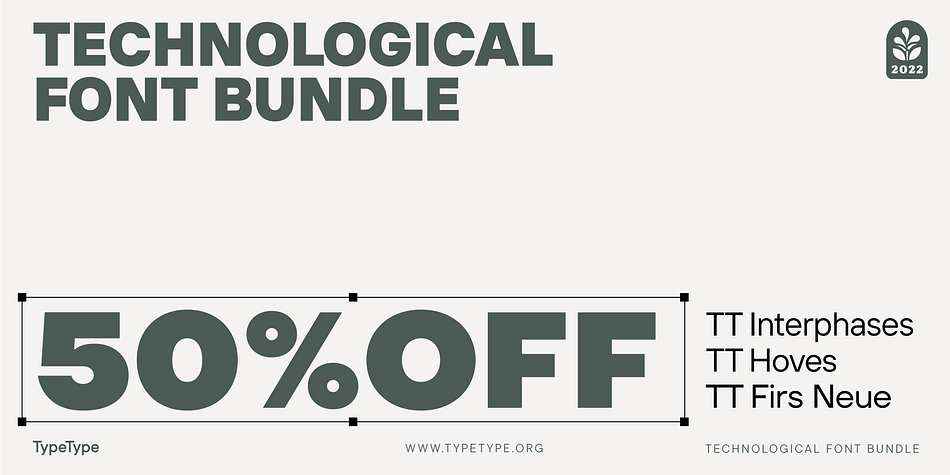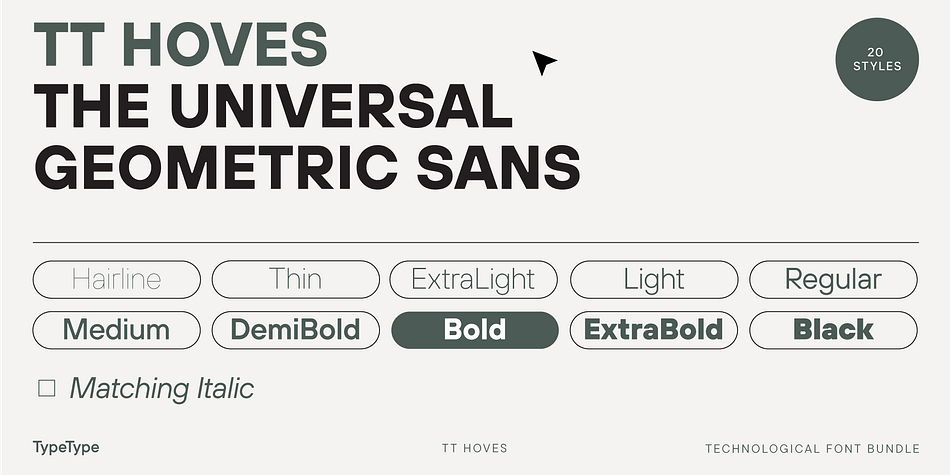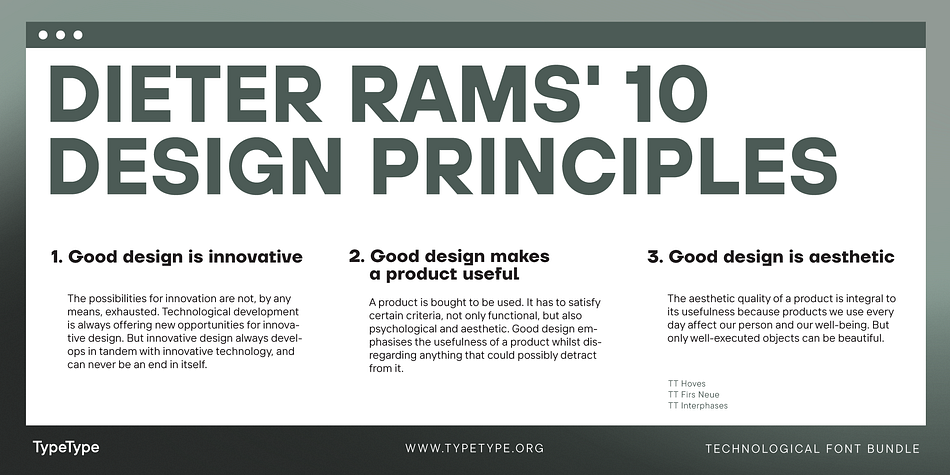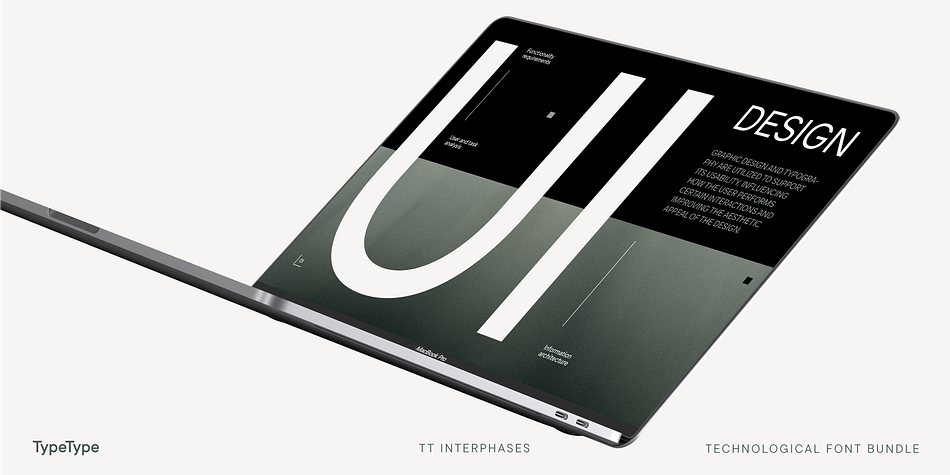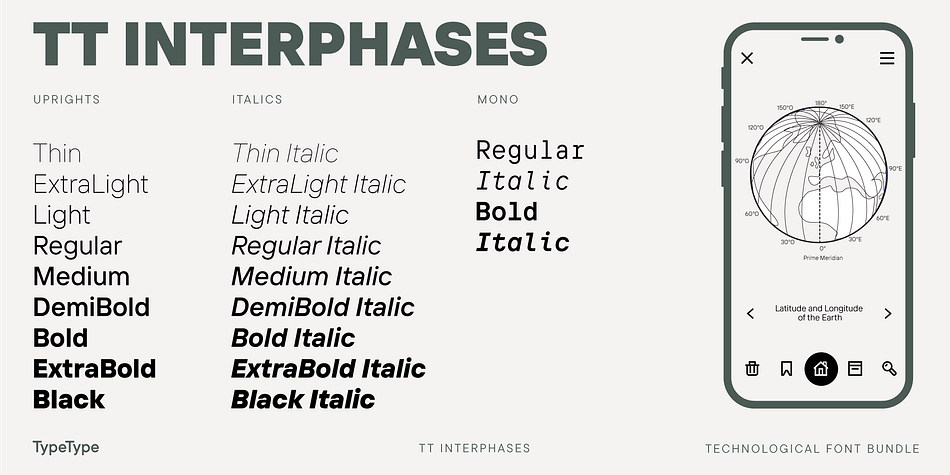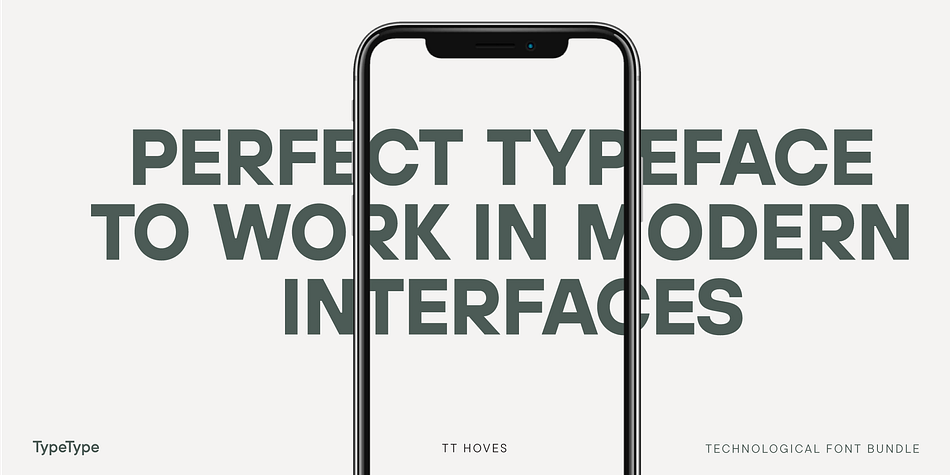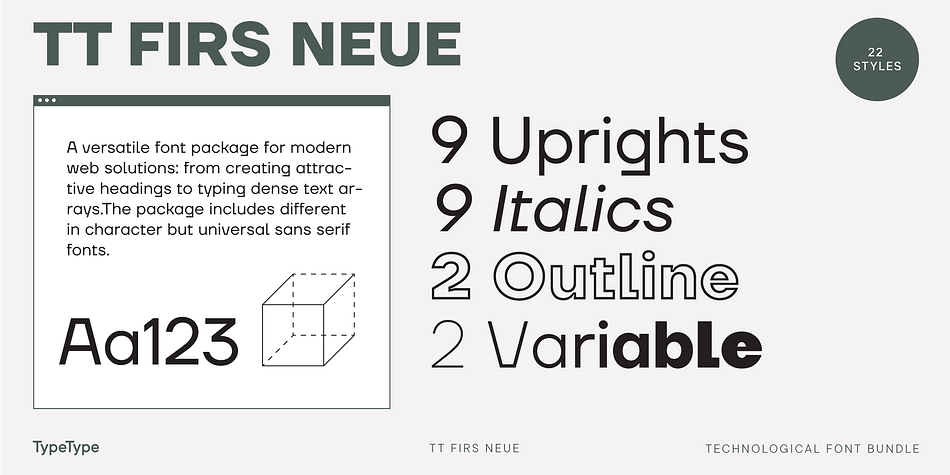
Designed by Ivan Gladkikh, TypeType Team and Phillip Nurullin, Technological font bundle is a sans serif font collection published by Typetype.
A versatile font package for modern web solutions: from creating attractive headings to typing dense text arrays.
The package includes different in character but universal sans serif fonts. Thanks to the variable, mono, and outline styles included in the bundle, you can give an authentic character to the developed web interfaces.